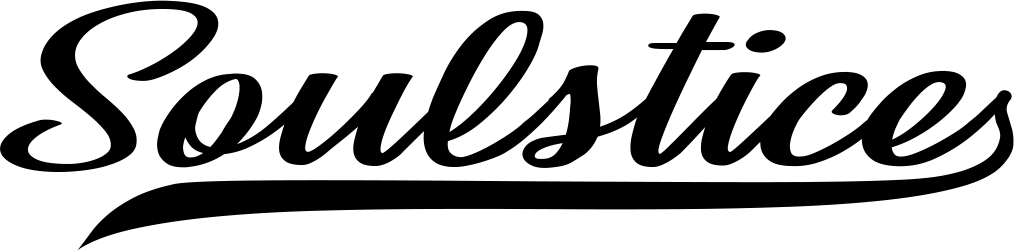
Soulstice Font
Soulstice font with the handle style shocks all audiences. This baseball script font with swash and interconnected characters is a great choice for casual projects or birthday theme designs. A combination of uppercase and lowercase letters in motivational and friendly designs can go beyond the imagination and win among other designs.
Note that this handwritten and calligraphic font does not have numbers and you can mostly use it for personal signatures and textbooks.